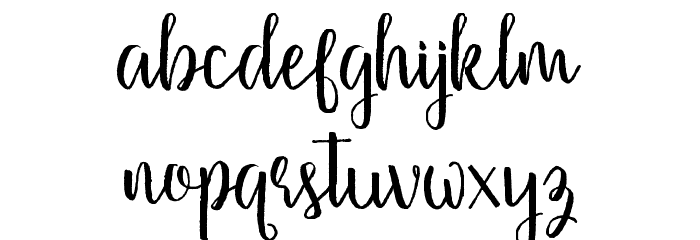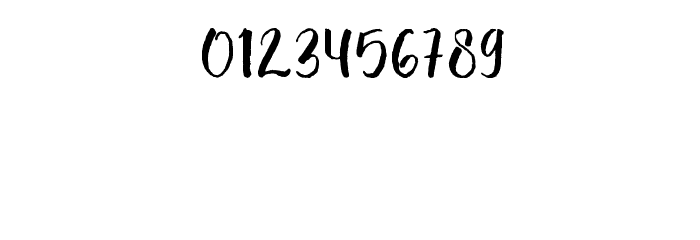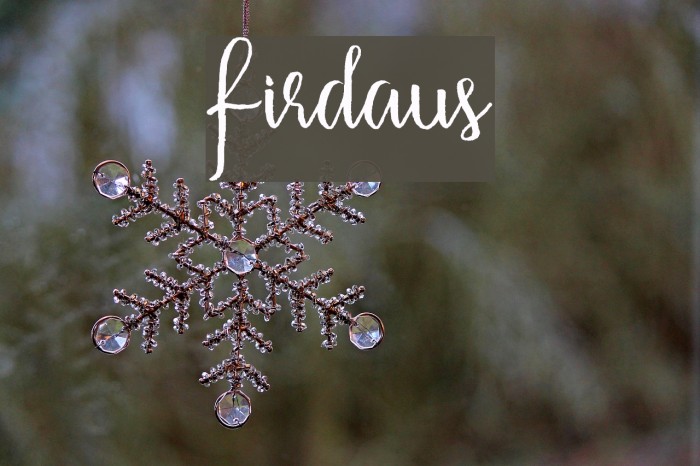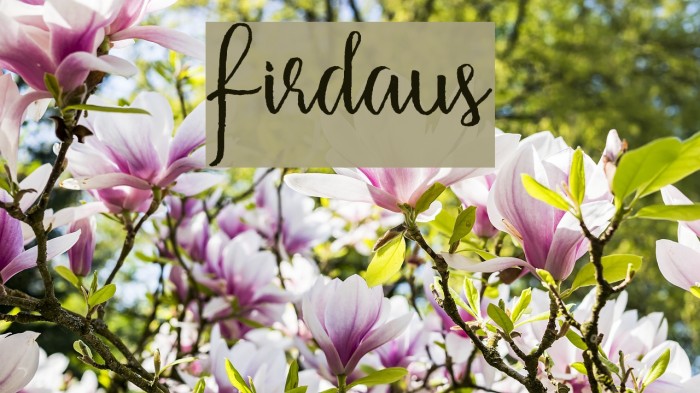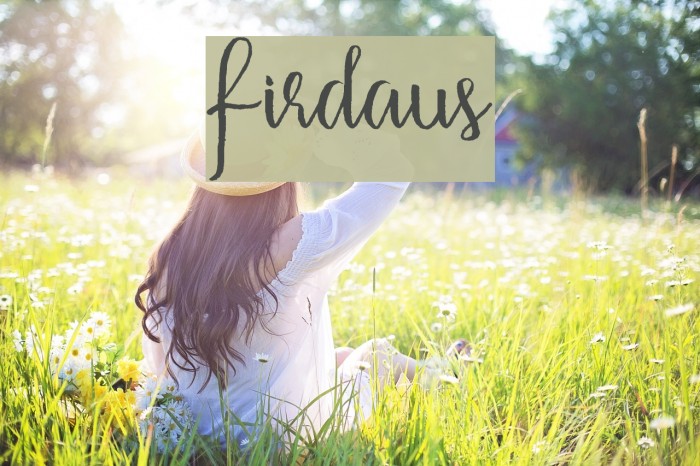
Firdaus Font
This font exhibits a charming handwritten style with a playful and artistic flair. The uppercase letters are tall and slightly narrow, with whimsical curves and loops that give them a unique personality. The lowercase letters maintain a consistent flow, featuring smooth, rounded forms that enhance readability while retaining a casual elegance. The numerals are well-balanced, matching the overall aesthetic of the alphabet. Special characters are thoughtfully designed to complement the font's style, making it versatile for various creative applications. The strokes are consistent in weight, providing a harmonious appearance across all characters.
A playful handwritten font with whimsical curves and smooth, rounded forms.
- Proposed Projects: Ideal for greeting cards, invitations, personal branding, and creative projects requiring a personal touch.
- Overall Style: Casual
- Use Case: Logos, Invitations, Greeting Cards